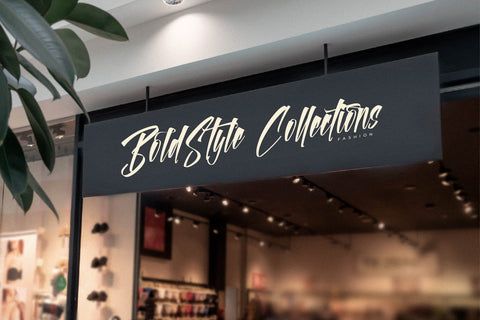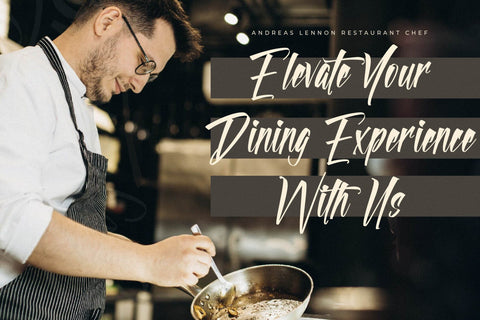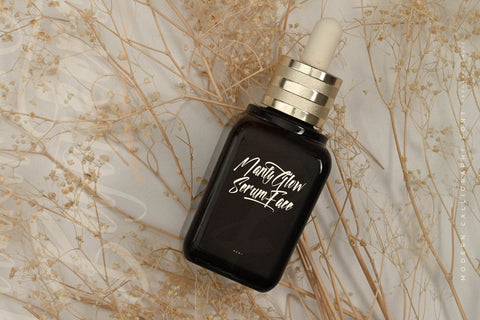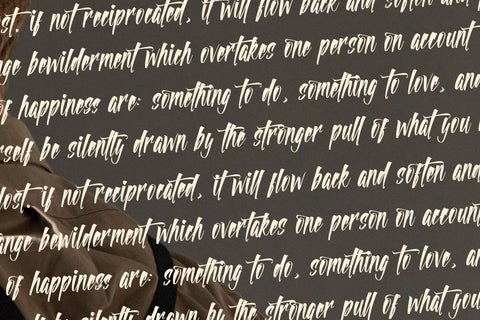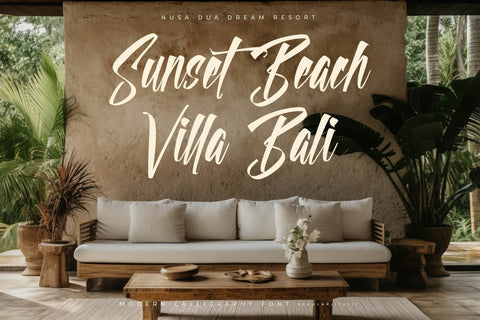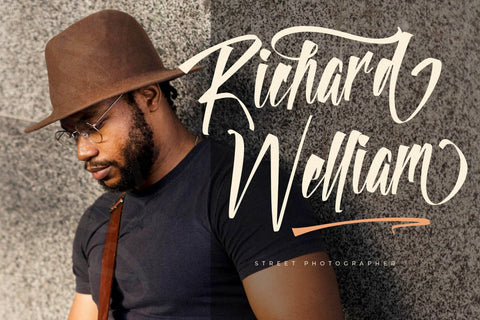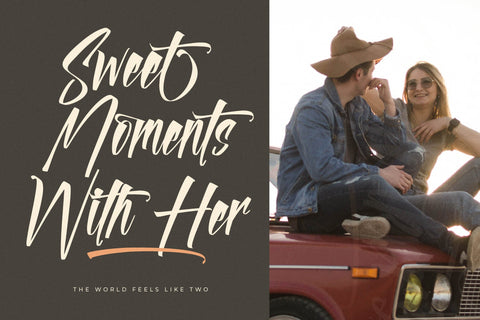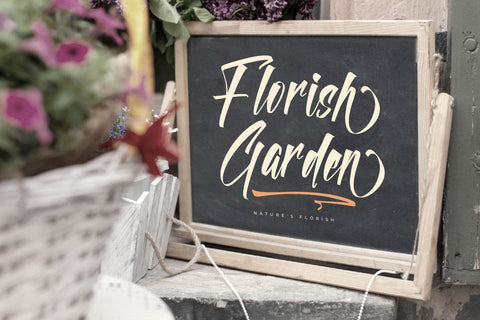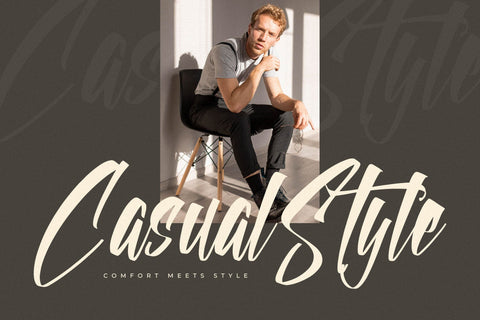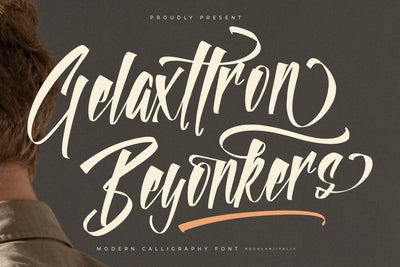
Gelaxttron Beyonkers - Modern Calligraphy Font
Gelaxttron Beyonkers - Modern Calligraphy Font , from Letterena, is a Luxury Script font, suitable for any projects such as: logos, branding projects, homeware designs, product packaging, mugs, quotes, posters, shopping bags, t-shirts, book covers, name card, invitation cards, greeting cards, label, photography, watermark, special events, and all your other luxury and beautiful projects that need a Luxury serif taste.